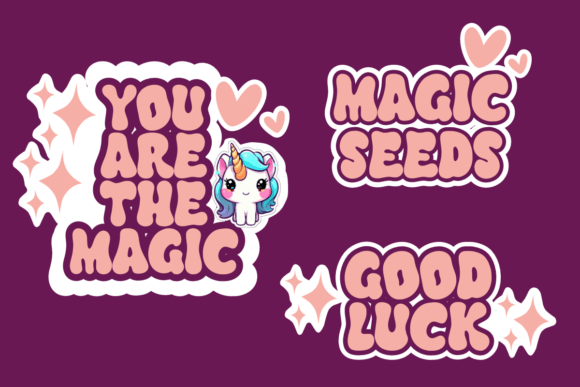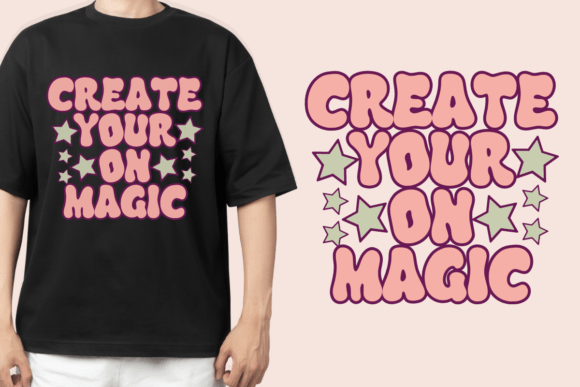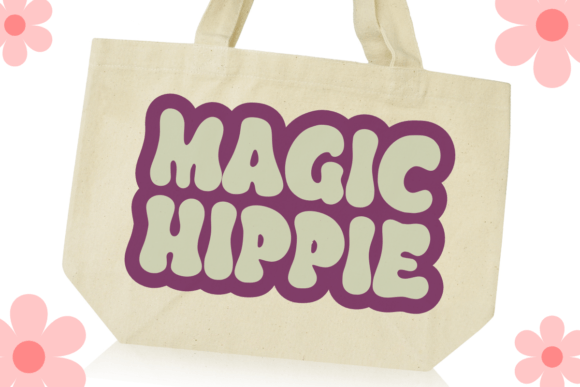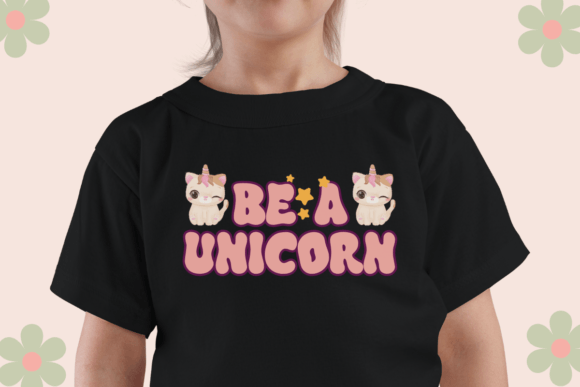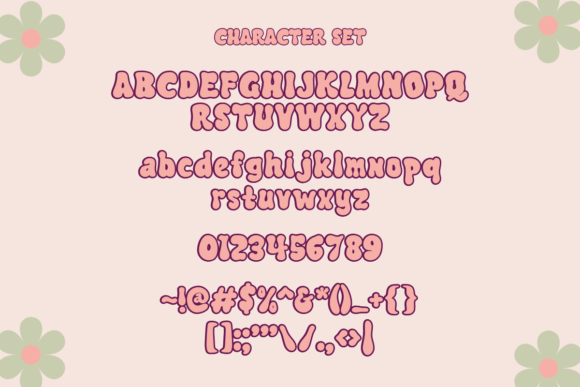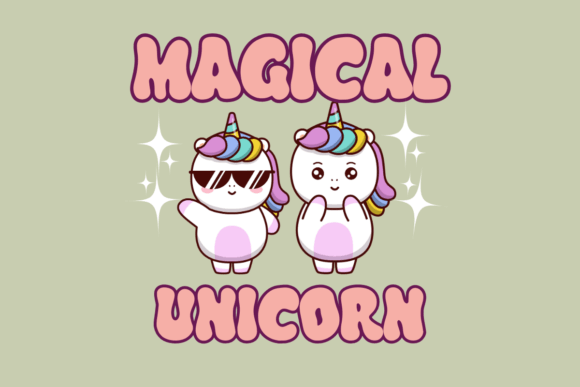
Introduction to Magic Cheze Font
Magic Cheze is a cute retro vintage display font, it’s perfect for designs that need a playful, cheery accent.
Magic Cheze is suitable for book covers, posters, packaging, merchandise, logotypes, and many more .